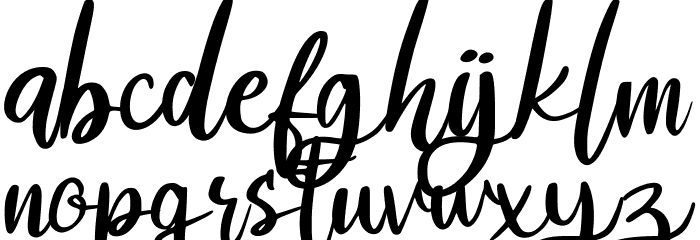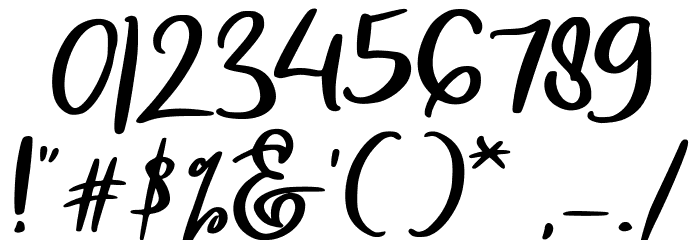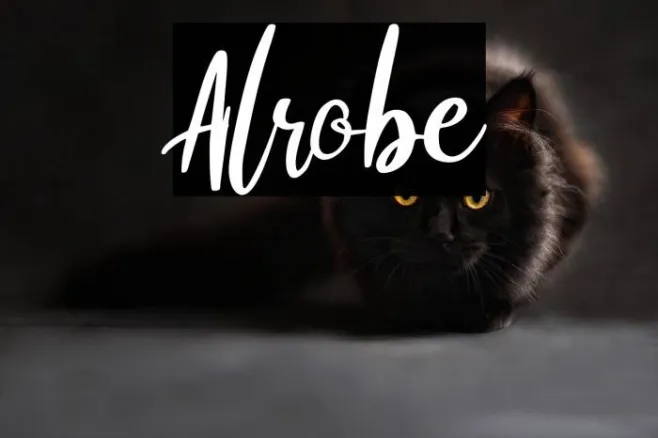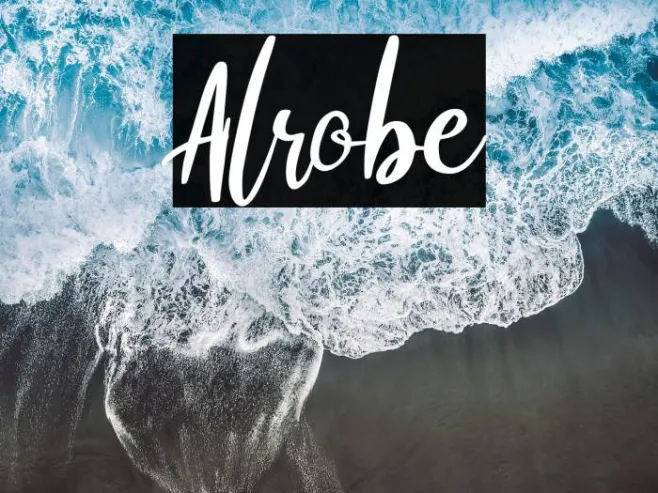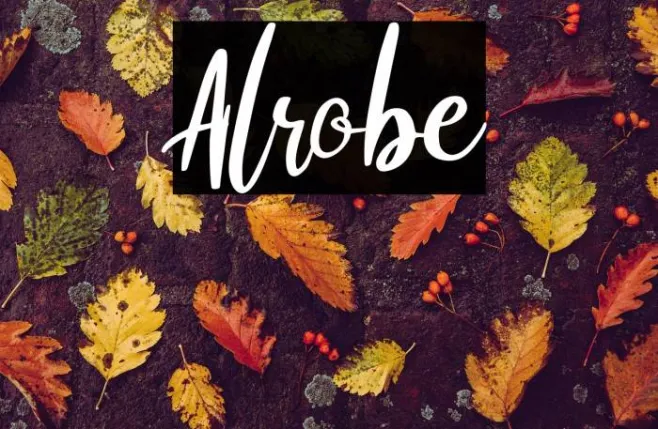
Alrobe Font
This font exhibits a dynamic and expressive handwritten style, characterized by its fluid and cursive letterforms. The uppercase letters are bold and slightly slanted, giving them an energetic appearance. The lowercase letters maintain a consistent flow, with some characters featuring unique loops and swashes that add to the font's charm. The numerals are well-integrated into the overall design, maintaining the same lively and playful aesthetic. Special characters are crafted with the same attention to detail, ensuring they blend seamlessly with the rest of the font. This font's overall style is both modern and artistic, making it suitable for a variety of creative applications.
A dynamic and expressive handwritten font with fluid, cursive letterforms.